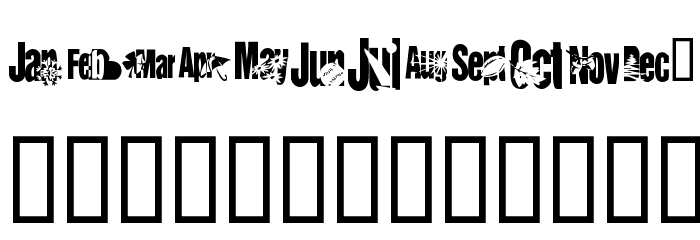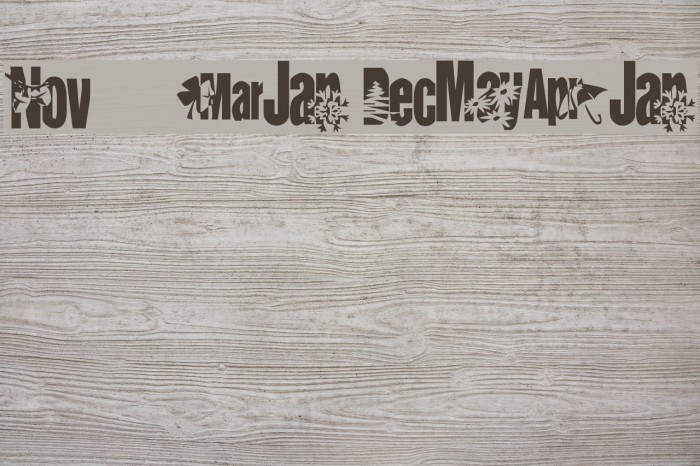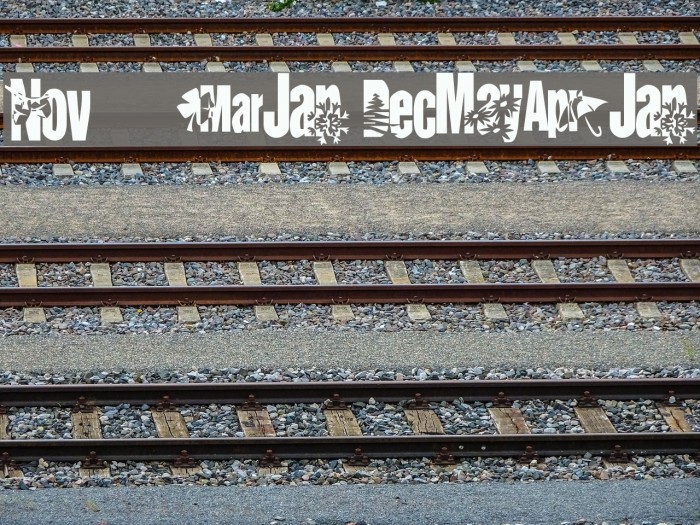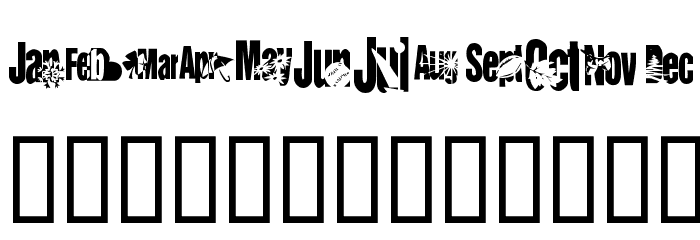
KR Calendar Font
This font features a decorative style with a playful and thematic approach, incorporating elements that resemble calendar months with unique embellishments. Each letter is creatively designed with seasonal motifs, making it visually engaging and suitable for themed projects. The characters are bold and have a strong presence, with a consistent width that gives a uniform appearance. The font is highly decorative, making it ideal for specific uses where a thematic and eye-catching design is desired.
A decorative font with calendar-themed embellishments, perfect for thematic projects.
• Proposed Projects: Ideal for creating themed calendars, event invitations, seasonal posters, and decorative headings.
• Category: Decorative/Display
• Overall Style: Decorative
• Use Case: Headlines, Logos, Themed Designs